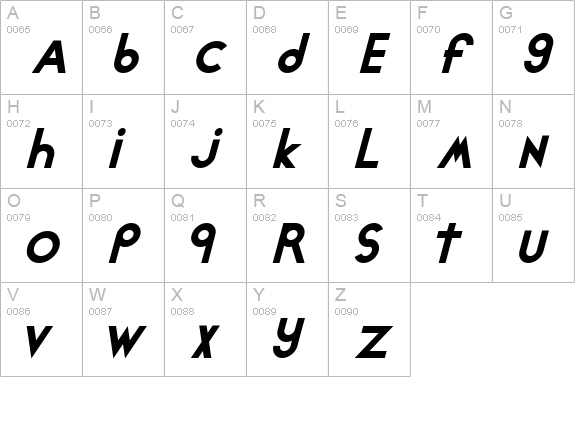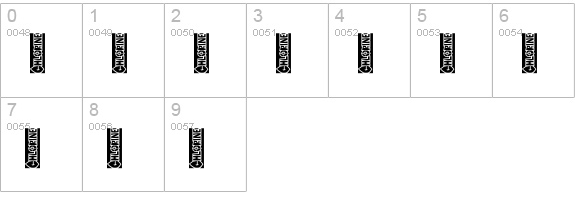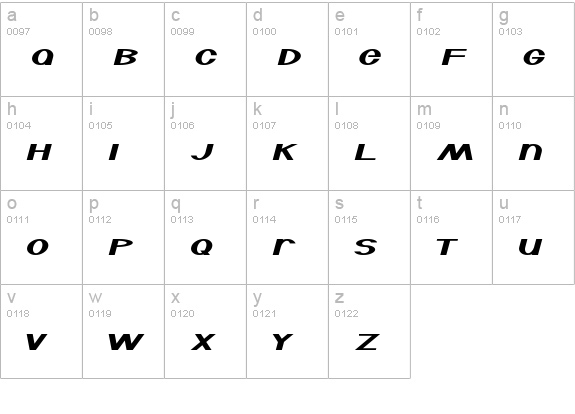
Chlorinut Font Details
Introducing Chlorinut, a visually captivating and versatile font that effortlessly combines modernity with a touch of elegance. Designed for those seeking a font that can effortlessly elevate their projects, Chlorinut is the perfect choice for a wide range of design applications. With its clean lines and unique character shapes, Chlorinut exudes a sense of sophistication and refinement. Whether used in branding, packaging, editorial design, or digital projects, this font is sure to make a lasting impression. But what truly sets Chlorinut apart is its accessibility. As a free font, Chlorinut offers an opportunity for designers and creatives to enhance their work without the burden of additional costs. It is freely available to download at FontsMarket.com, ensuring that everyone can experience the beauty and versatility of Chlorinut. Embodying a harmonious balance between legibility and creativity, Chlorinut boasts a wide range of weights and styles, allowing for endless possibilities in design. From bold headlines to elegant body text, this font effortlessly adapts to any project, delivering a seamless and cohesive visual experience. Chlorinut's attention to detail is evident in its meticulous kerning and well-crafted letterforms. With its smooth curves and precise spacing, this font ensures optimal readability, even at smaller sizes. Whether displayed on screens or in print, Chlorinut maintains its clarity and impact, making it an ideal choice for websites, presentations, and printed materials. Incorporating Chlorinut into your design arsenal means gaining access to a font that not only captivates with its aesthetic appeal but also provides a solid foundation for effective communication. Its versatility and accessibility make it a must-have for both seasoned designers and aspiring creatives looking to make their mark. So why wait? Discover the beauty of Chlorinut today and unlock the potential to create stunning designs that leave a lasting impression. Download this remarkable font for free at FontsMarket.com and embark on a journey of visual storytelling like never before.